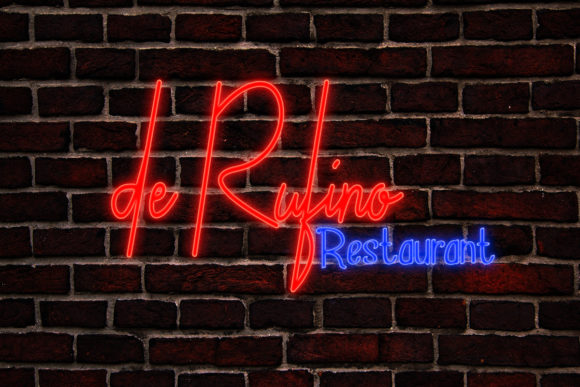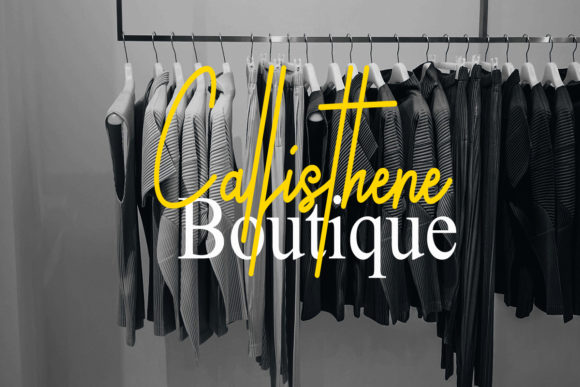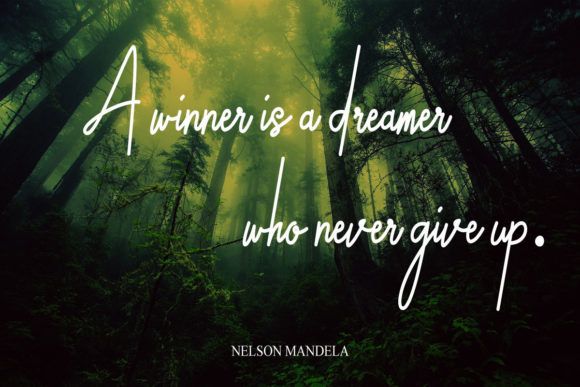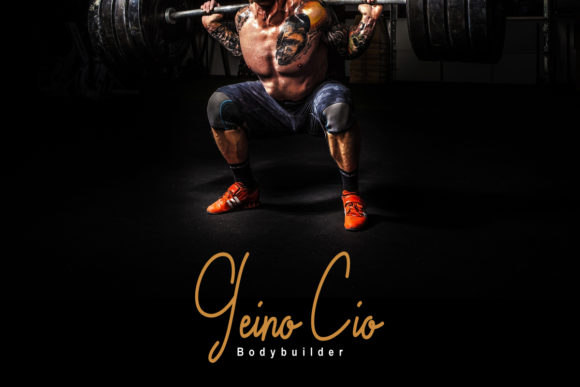
Introduction to Rufino Font
As a designer, have you ever found yourself stuck in a creative rut, searching for the perfect font to bring your DIY project to life? We’ve all been there – staring at a blank canvas, waiting for inspiration to strike. But what if we told you that the perfect font is just a download away? Say hello to the stunning Rufino Font, a signature script font that’s about to revolutionize your design game.
Whether you’re working on a personal project or a client’s vision, the Rufino Font is the perfect design resource to elevate your work. Its unique, high-quality design makes it a valuable asset for any creative project. Plus, with its transparent background, you can easily overlay it on any image or design element, giving you endless possibilities for customization. And the best part? It’s available for free download, making it an accessible and valuable addition to any designer’s toolkit.
Rufino Font
- High-quality design resource with a unique, hand-drawn style, ideal for creative projects
- Designed to be highly scalable, with a large character set and support for various languages
- Comes in 3 different font weights: Light, Regular, and Bold, providing versatility for various design needs
Honest Review: Rufino Font
I recently came across the Rufino Font, and I must say it’s a great addition to any designer’s toolkit. This free download has been a game-changer for my creative projects, providing a high-quality, versatile font that’s perfect for a wide range of designs.
What works well about the Rufino Font is its modern and elegant design. It’s great for headings and titles, and the transparent background feature makes it easy to customize and combine with other design elements. The font is also highly legible, making it perfect for body text and longer passages.
- ✨ Modern and elegant design
- ✨ Transparent background feature
- ✨ Highly legible
- ✨ Perfect for headings, titles, body text, and creative projects
However, I did encounter a few limitations while using the Rufino Font. The font family is relatively small, and I found that it can be a bit tricky to pair with other fonts. Additionally, the font may not be suitable for very large or complex designs.
- ⚠️ Limited font family
- ⚠️ Can be tricky to pair with other fonts
- ⚠️ May not be suitable for very large or complex designs
Overall, I’m impressed with the Rufino Font and would highly recommend it as a design resource. It’s a great option for designers looking for a high-quality, free font that’s perfect for creative projects.
The Rufino Font is suitable for a wide range of creative projects, including logos, business cards, and social media graphics. Its transparent background and high-quality design make it an ideal choice for any project where a clean and modern look is desired.